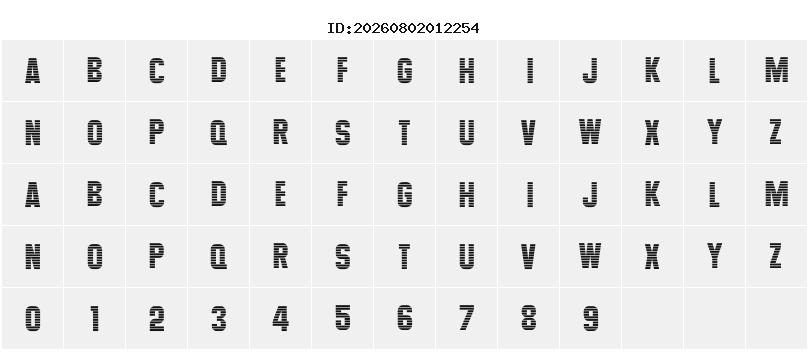
Maximus Preview
• Font Name: Maximus
• Full Font Name: Maximus Regular
About Maximus.ttf
Maximus.ttf is a modern, elegant sans-serif font designed for ultimate readability and visual harmony. Perfect for branding, headlines, web design, and print materials.